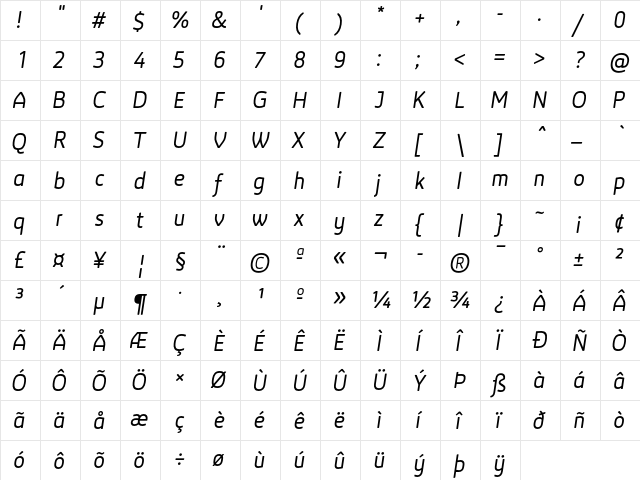
LT Reponse Rounded Italic Font Preview
| Foundry | Daniel Lyons Entertainment / LyonsType |
| Designer | Dan P. Lyons |
Design Context for LT Reponse Rounded Typeface
LT Reponse Rounded uses gentle rounded endings to create a warm, inviting typographic personality — less corporate than geometric sans, more refined than playful display fonts. The slanted form adds forward momentum and visual energy. Its slender proportions lend an understated elegance to any composition.
Well-suited to UI design, mobile interfaces, and any brand that wants approachability without sacrificing clarity.
Font Pairing: Pairs well with a rounded or humanist sans for body copy, maintaining the friendly tone without relying on LT Reponse Rounded to carry extended reading.
Pro Tip: Use LT Reponse Rounded for UI elements, app interfaces, and anywhere a friendly, approachable tone needs to be maintained without sacrificing clarity.